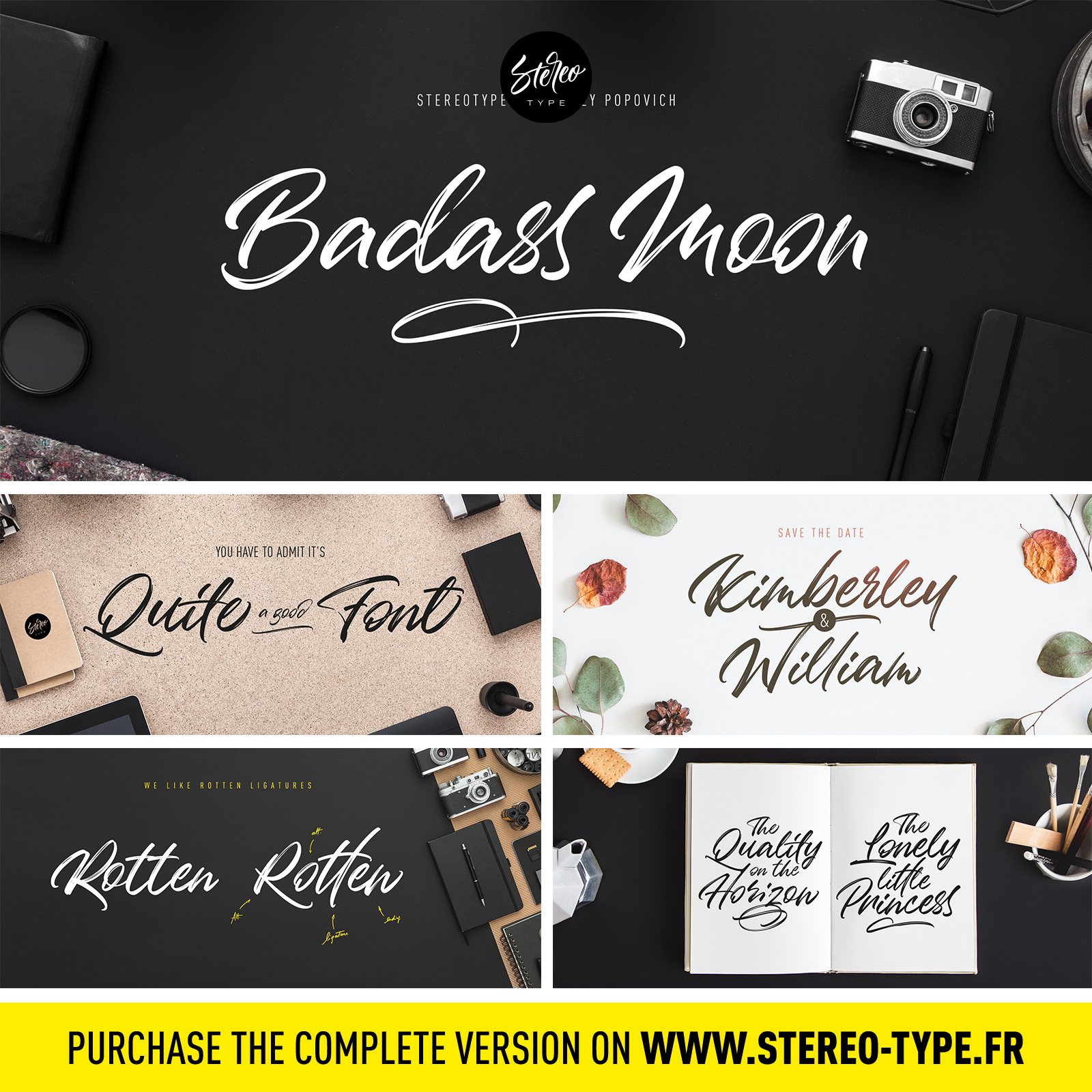
Preview and download Badass Moon Font. Created by StereoType in Script Brush styles with Free for personal use license.
Hello, and thank you for downloading this font. Badass Moon is a cool script font made from the lettering work of Andrey Popovich ( https://www.instagram.com/andrey_ppvch/ ). The full commercial version includes a huge set of 115 alternates, contextual ligatures and underlining. This font is free for PERSONAL USE ONLY! But if you want to get a commercial license, it�s available at: http://www.stereo-type.fr I made it with love, so I hope you�ll love to use it ! Clem | StereoType |